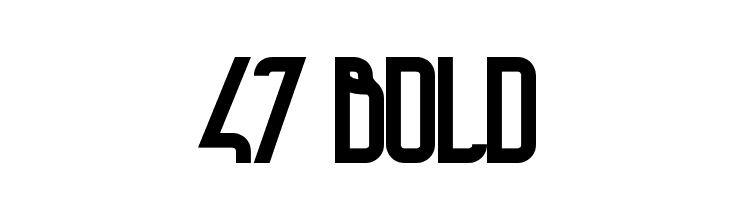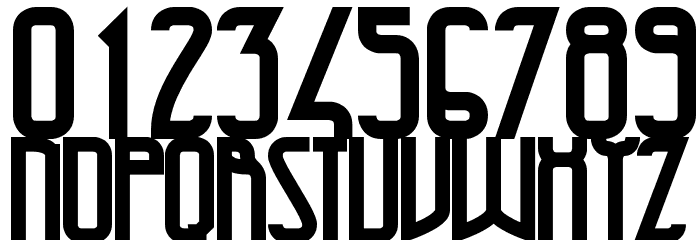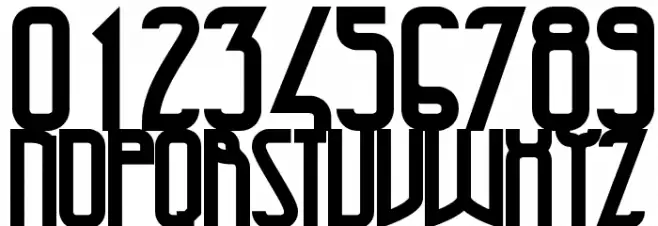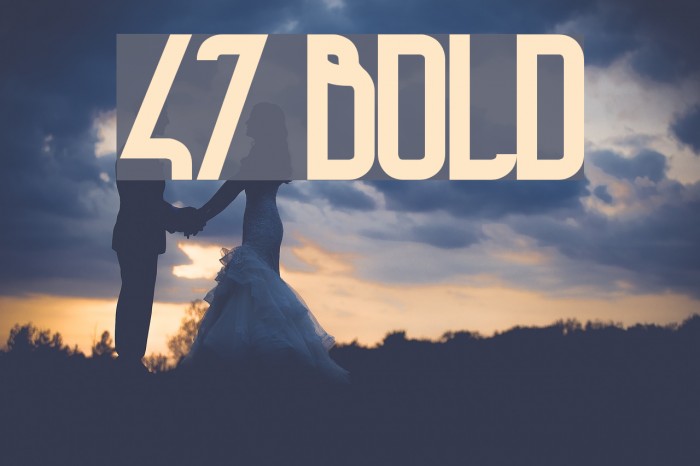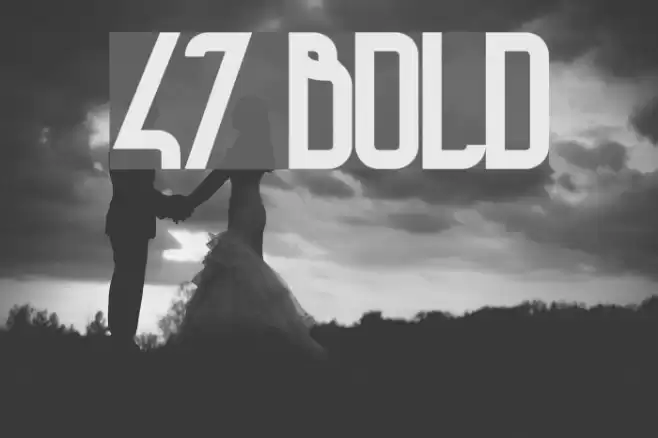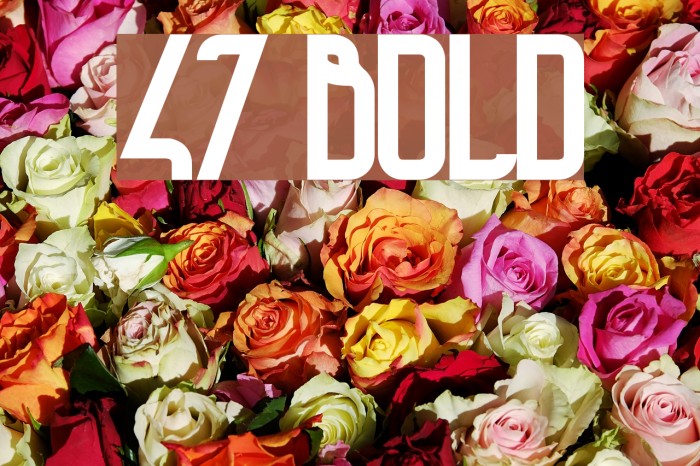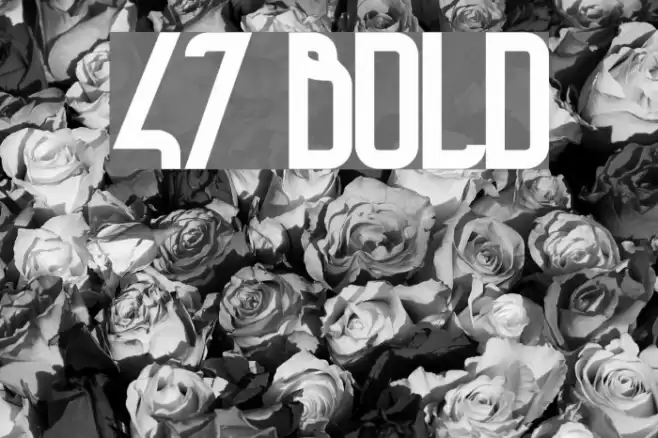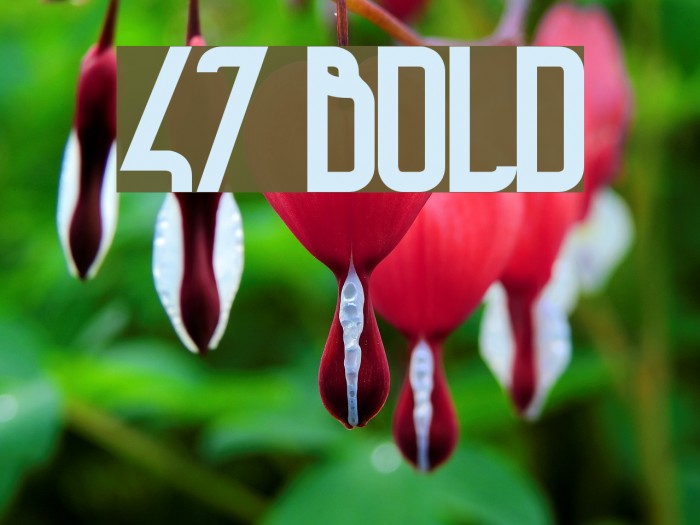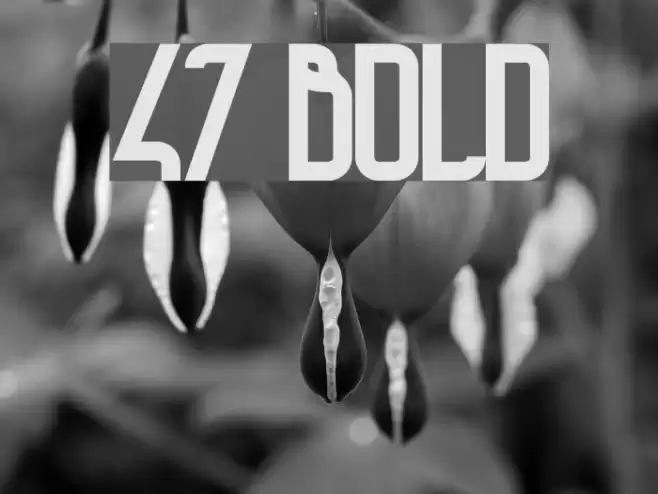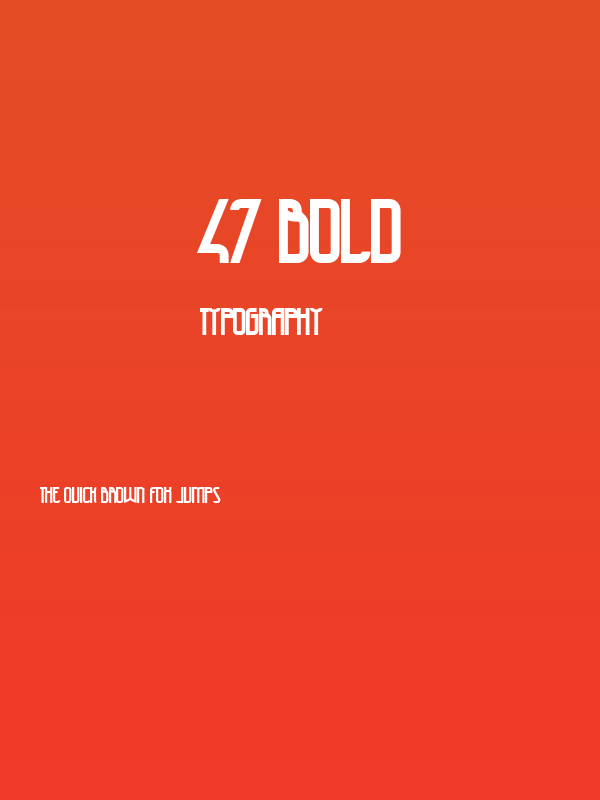
47 Bold Font
47 Bold Description
This font features a bold and geometric design, characterized by its strong, angular lines and uniform stroke width. The uppercase letters are particularly striking, with a consistent height and width that create a cohesive and modern appearance. The numerals and special characters maintain this geometric style, ensuring a seamless integration across different types of content. The font's design is both eye-catching and functional, making it suitable for a variety of applications where a bold statement is needed.
| Proposed Projects | Ideal for branding, posters, headlines, and any design project that requires a modern and impactful typeface. |